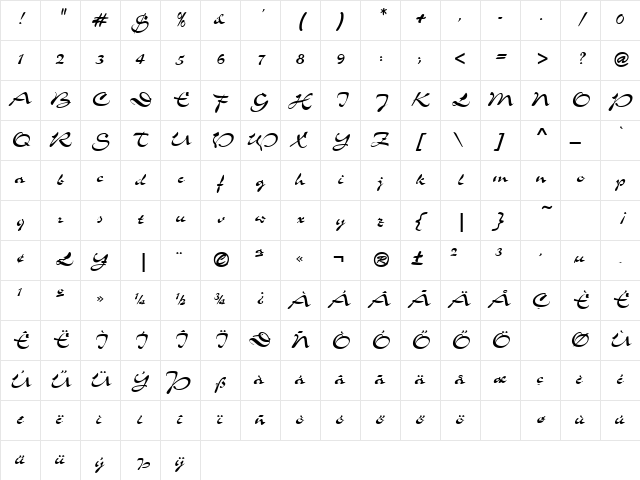
HShogun Normal
Design Context for HShogun
HShogun is a composed and adaptable typeface that performs quietly and consistently across a wide range of design contexts.